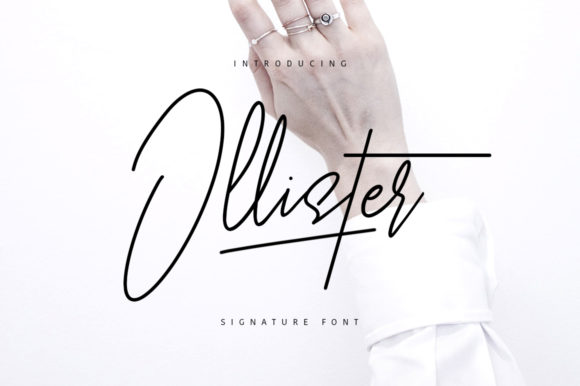
Ollister Font
About Ollister Font
Ollister is a thin and delicate handwritten font. Add this font to your favorite creative ideas and notice how it makes them come alive!